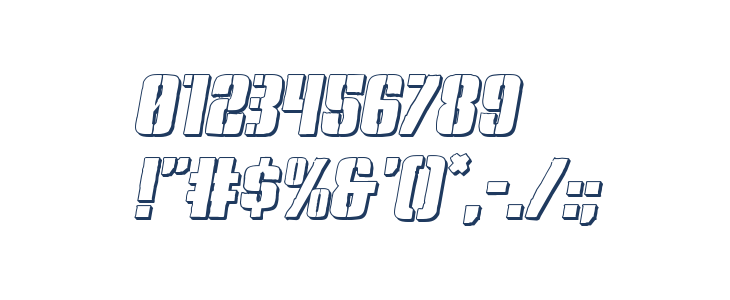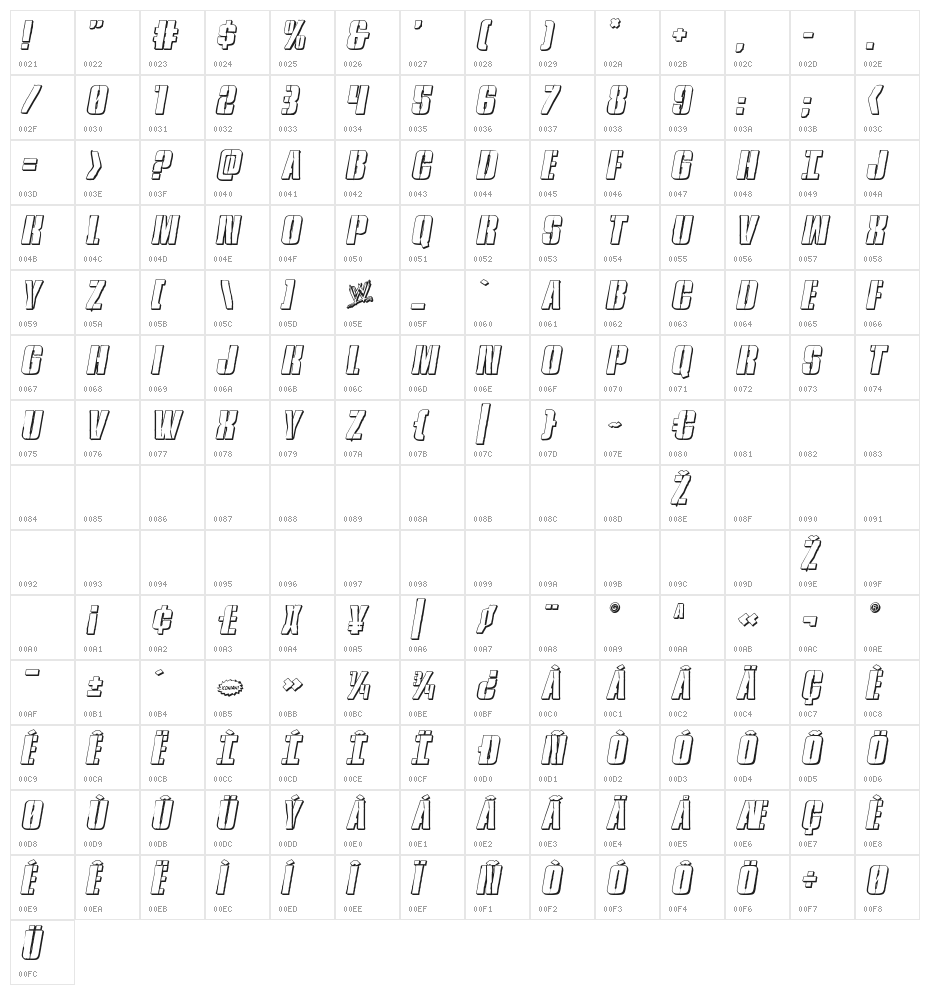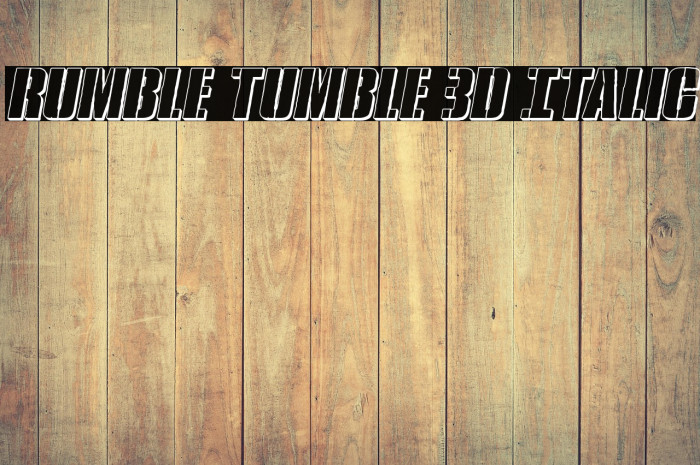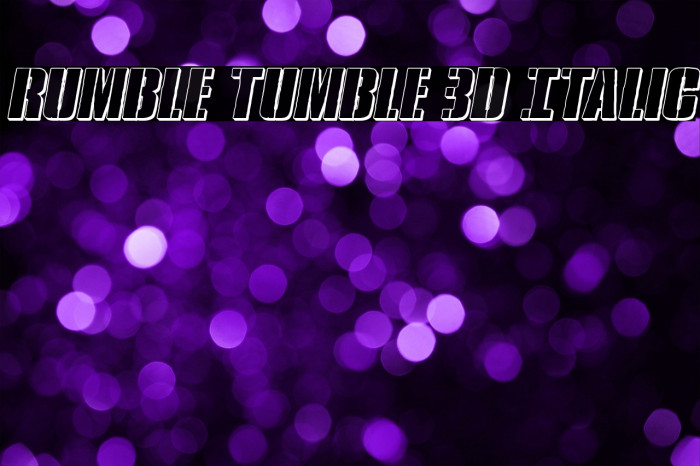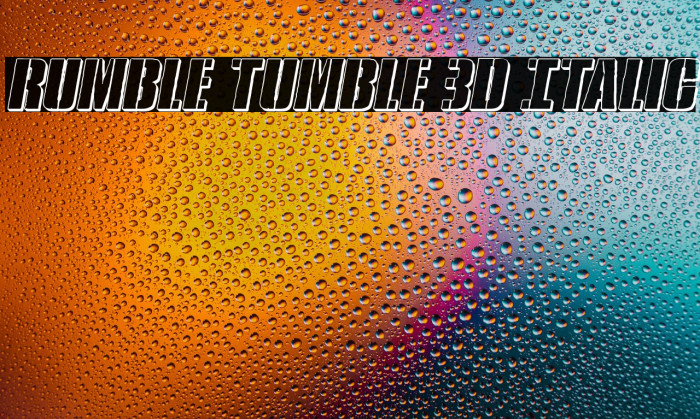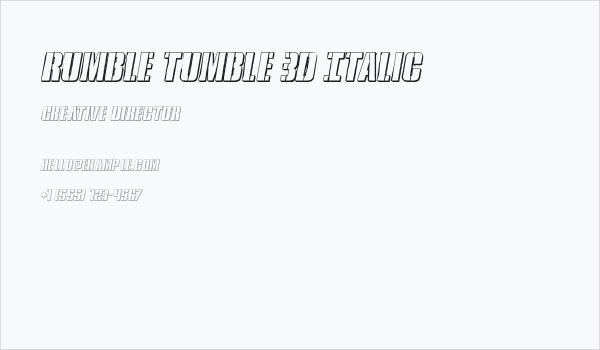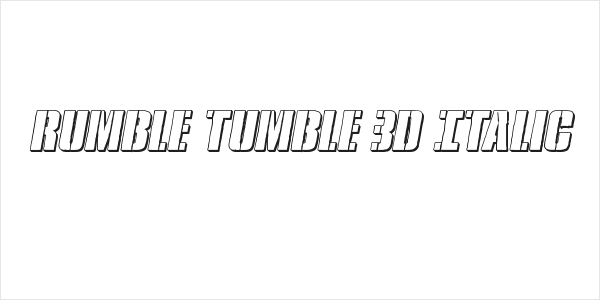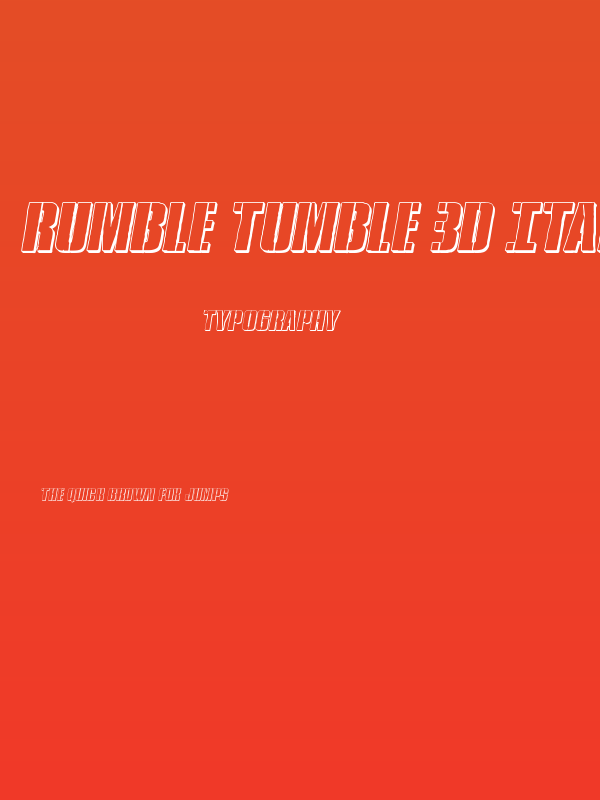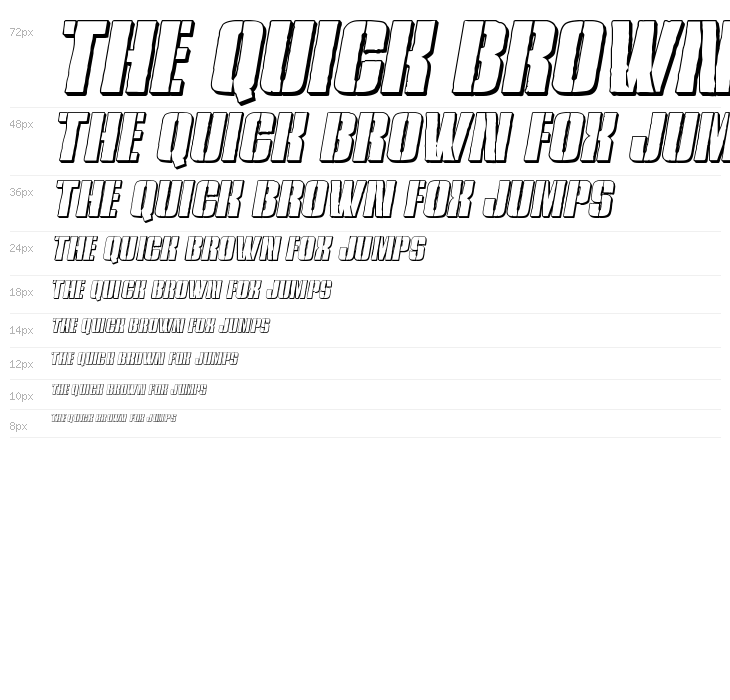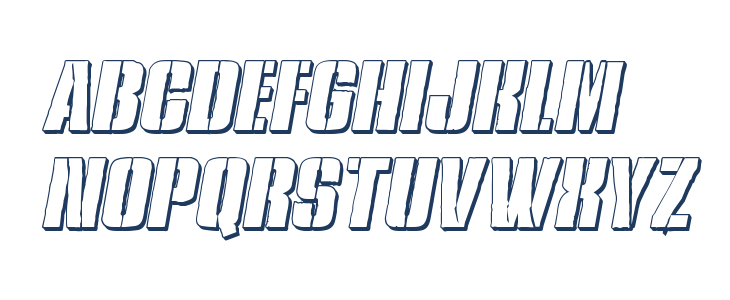
Rumble Tumble 3D Italic Font
Rumble Tumble 3D Italic Description
This font features a bold, three-dimensional design with an italic slant, creating a dynamic and eye-catching appearance. The characters are robust and impactful, with a distinct shadow effect that adds depth and dimension. The uppercase and lowercase letters maintain a consistent style, emphasizing the boldness and 3D effect. Numbers and special characters are equally bold and follow the same three-dimensional style, ensuring uniformity across all elements. The font's design is ideal for making a strong visual statement, with its thick strokes and shadowing providing a sense of movement and energy.
| Proposed Projects | Ideal for posters, headlines, logos, and any design requiring a strong visual impact. |